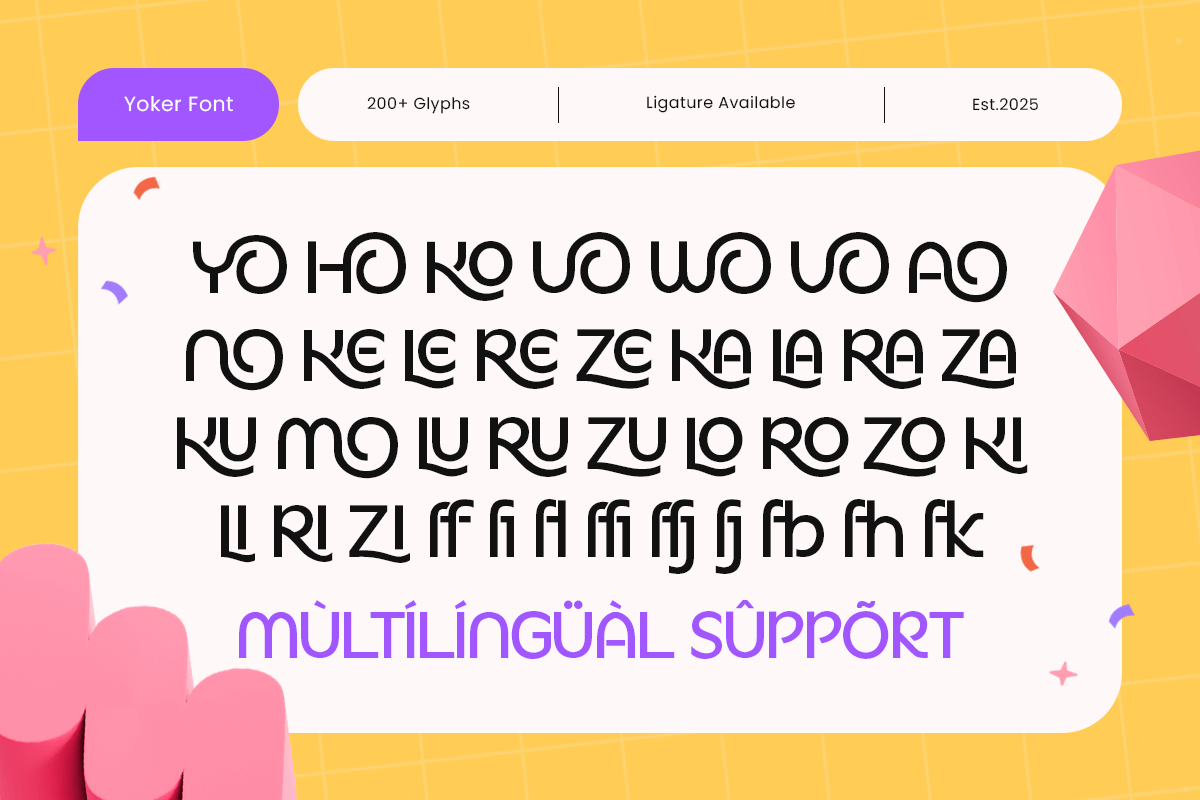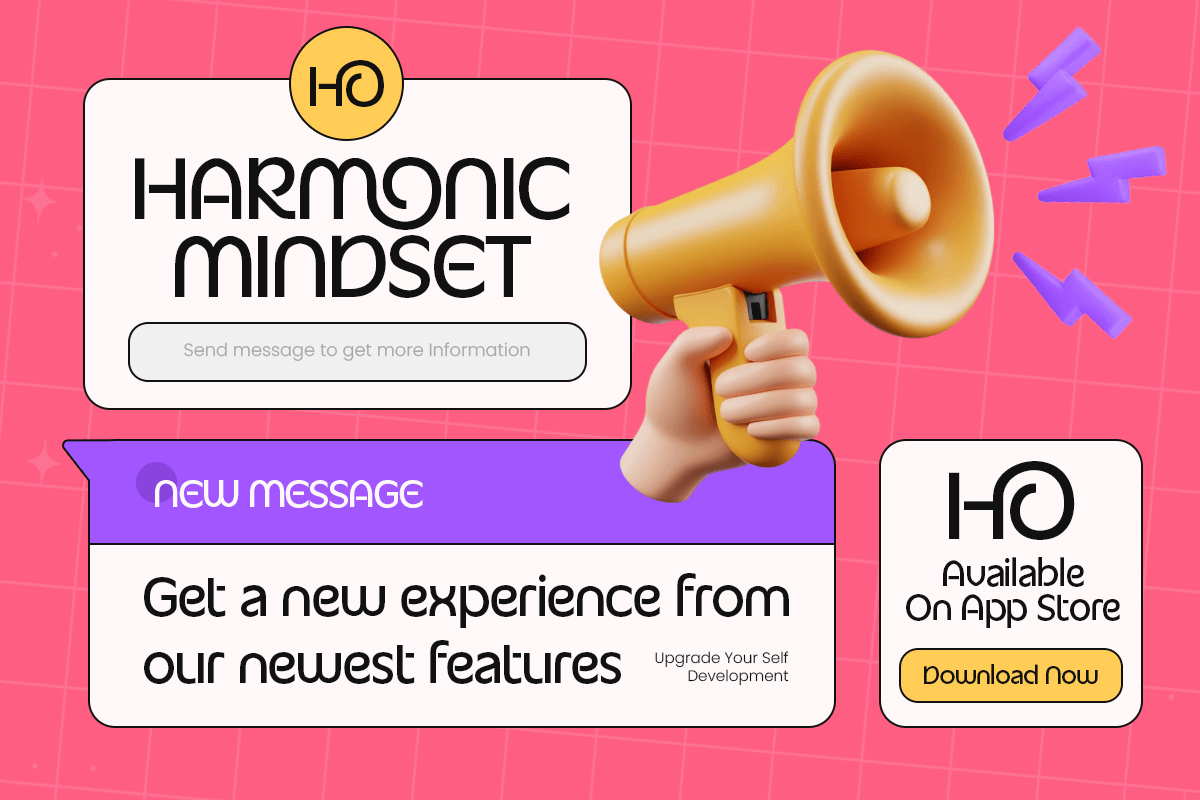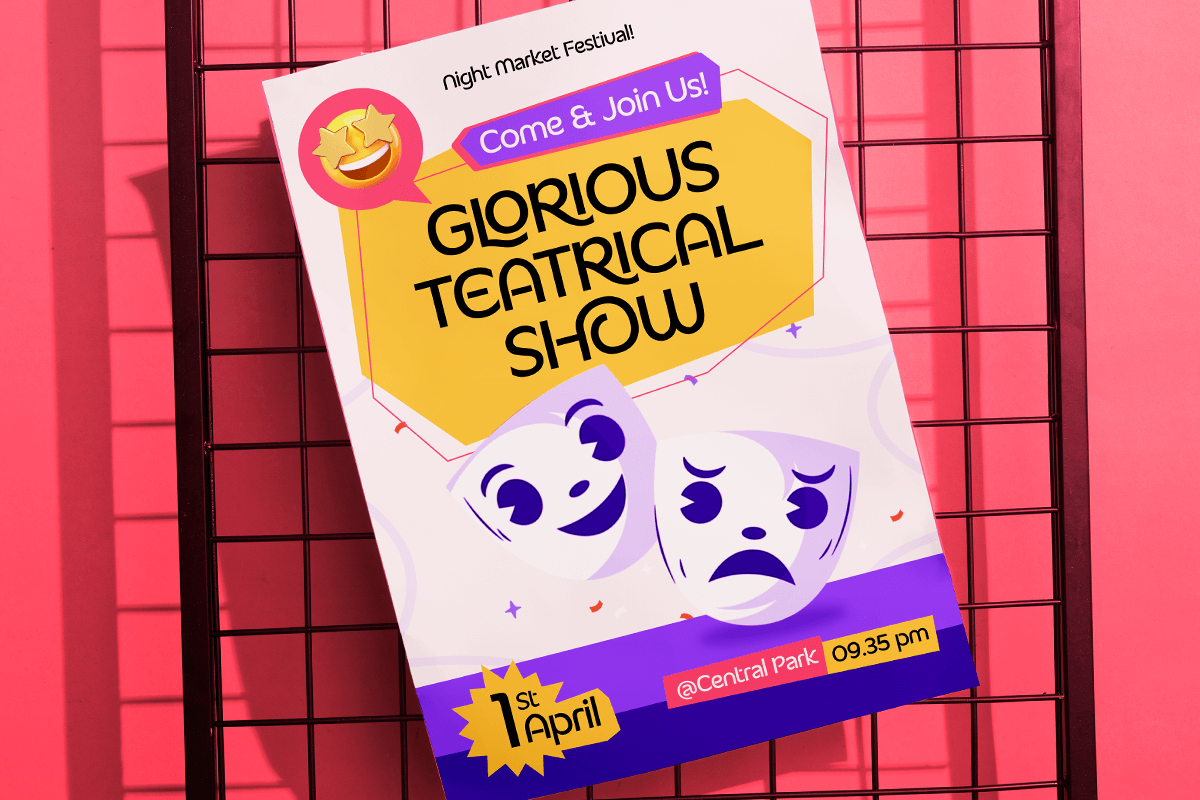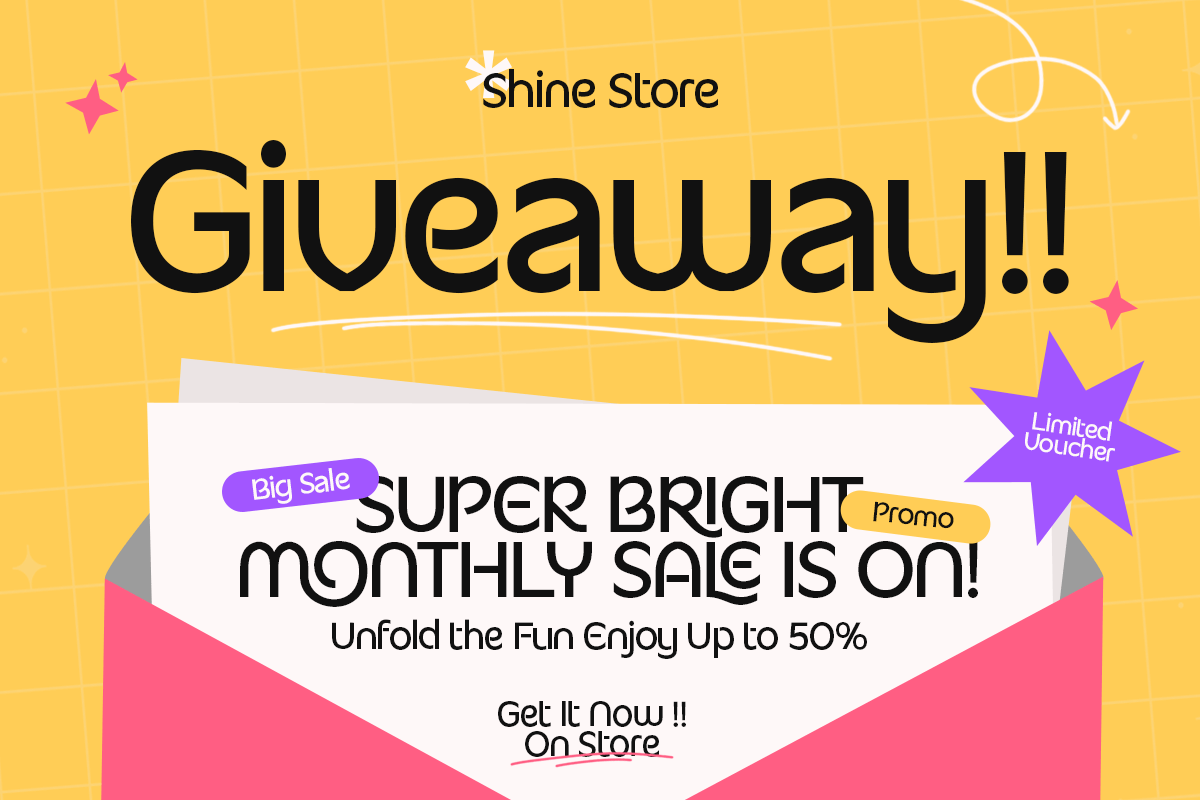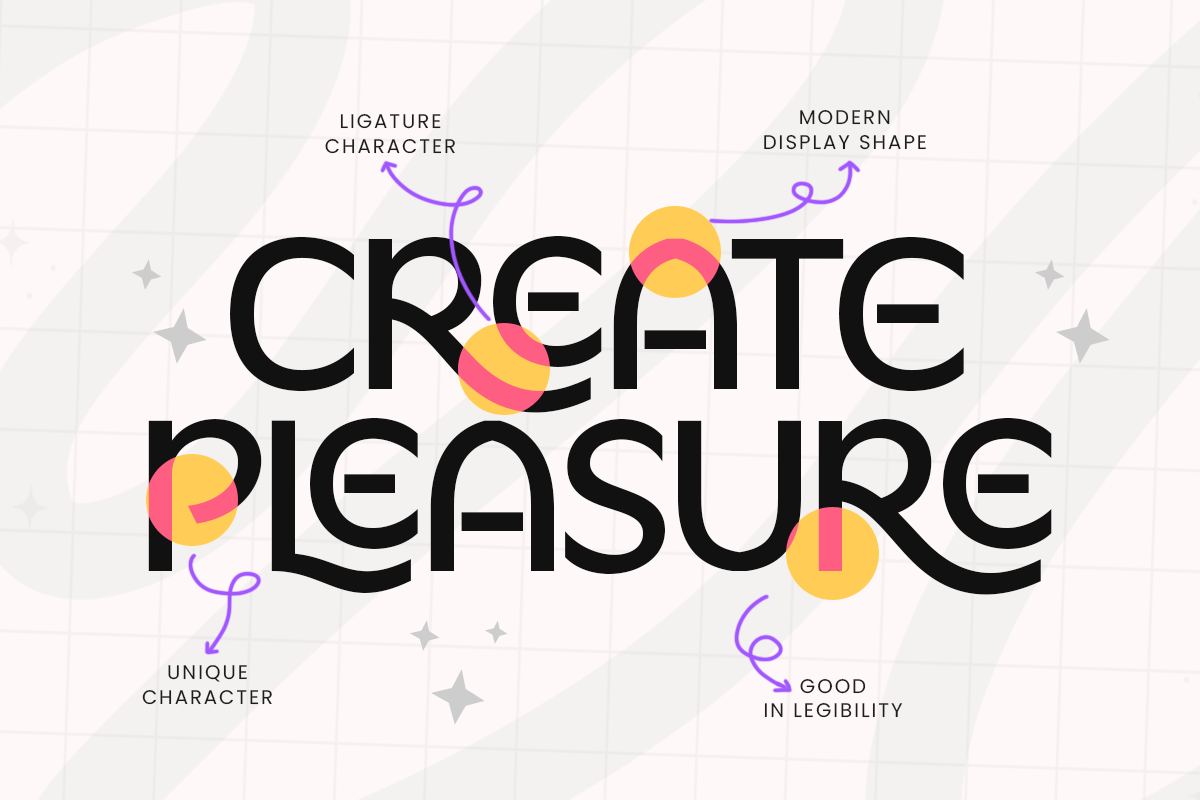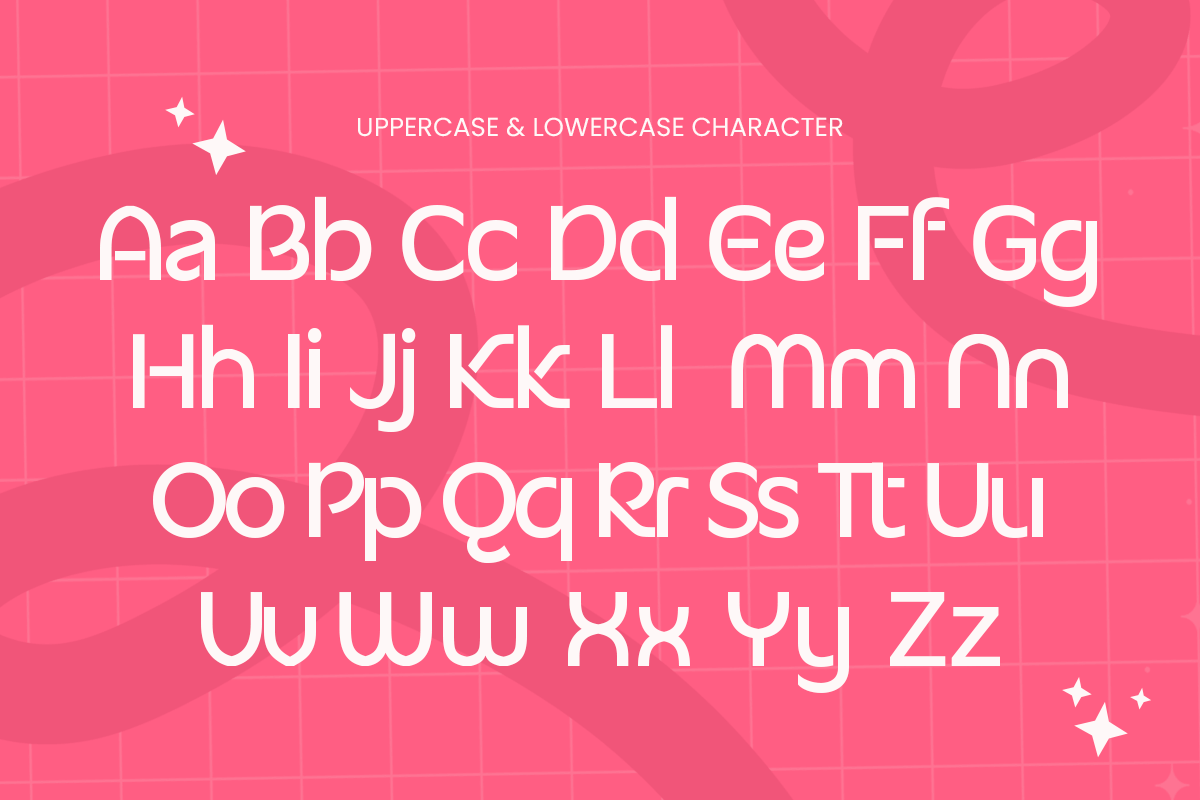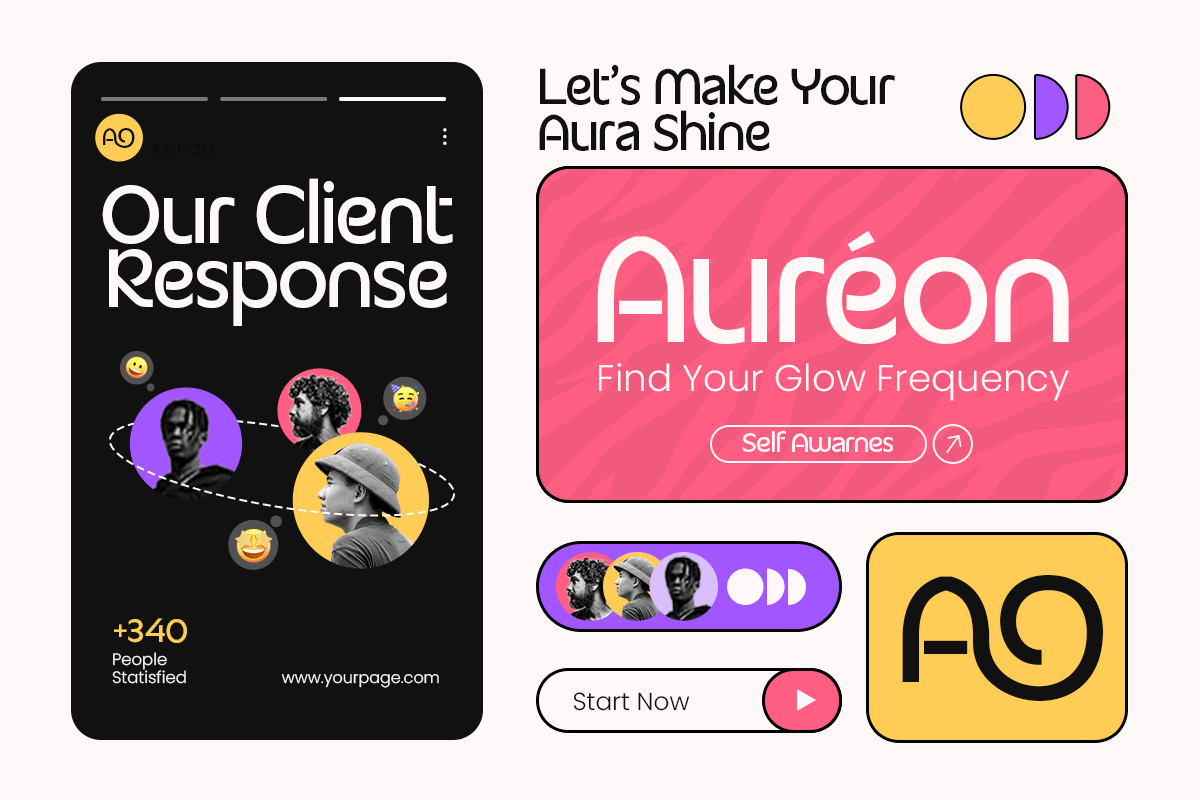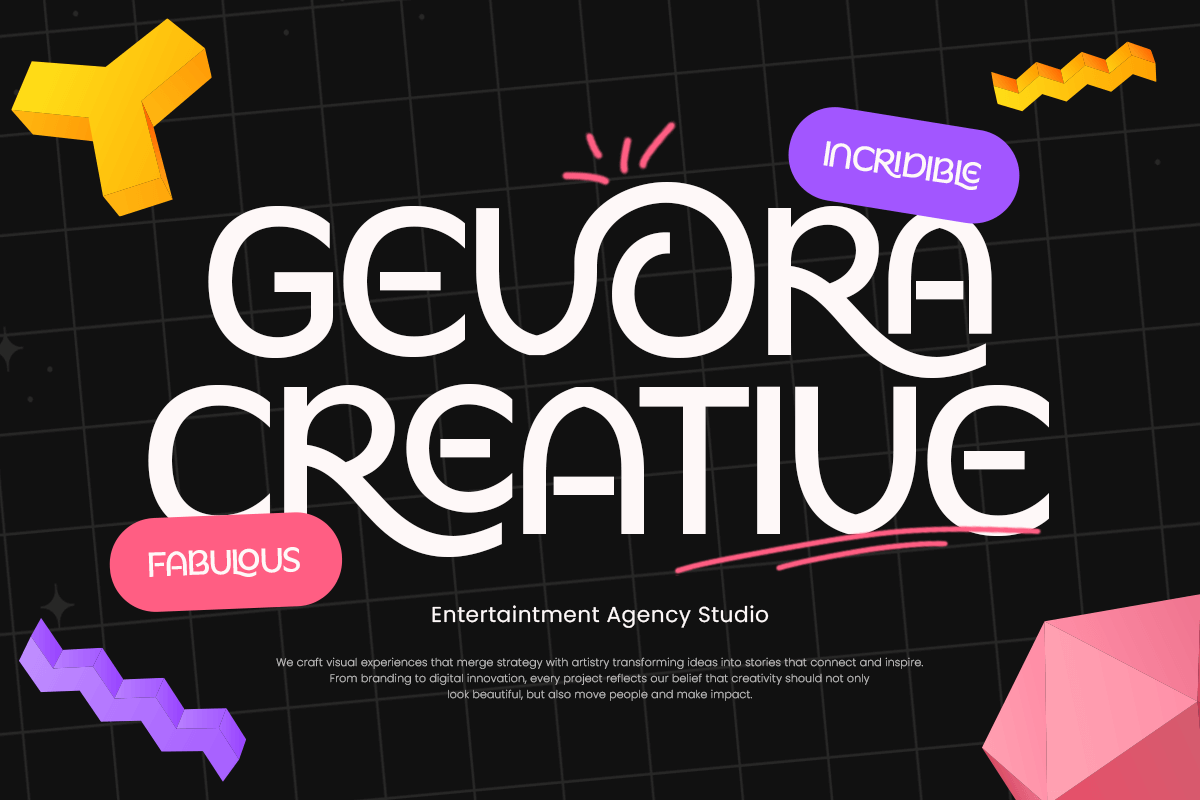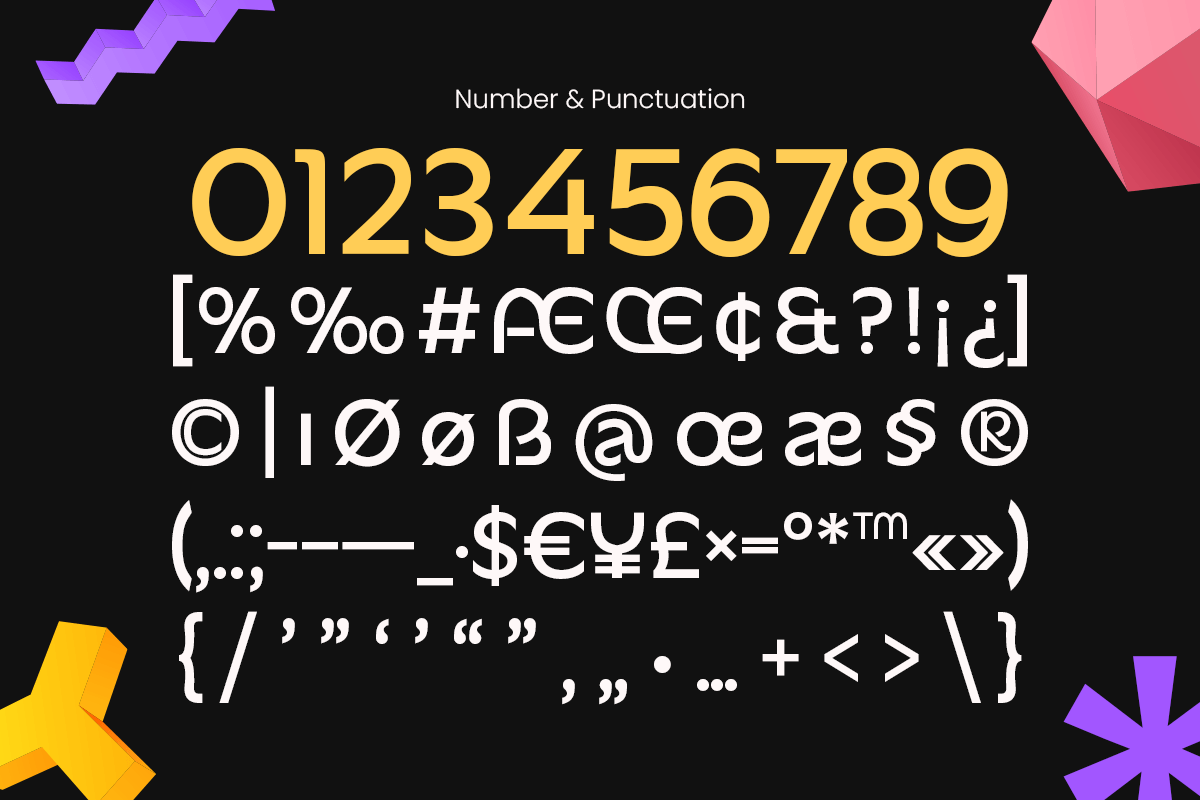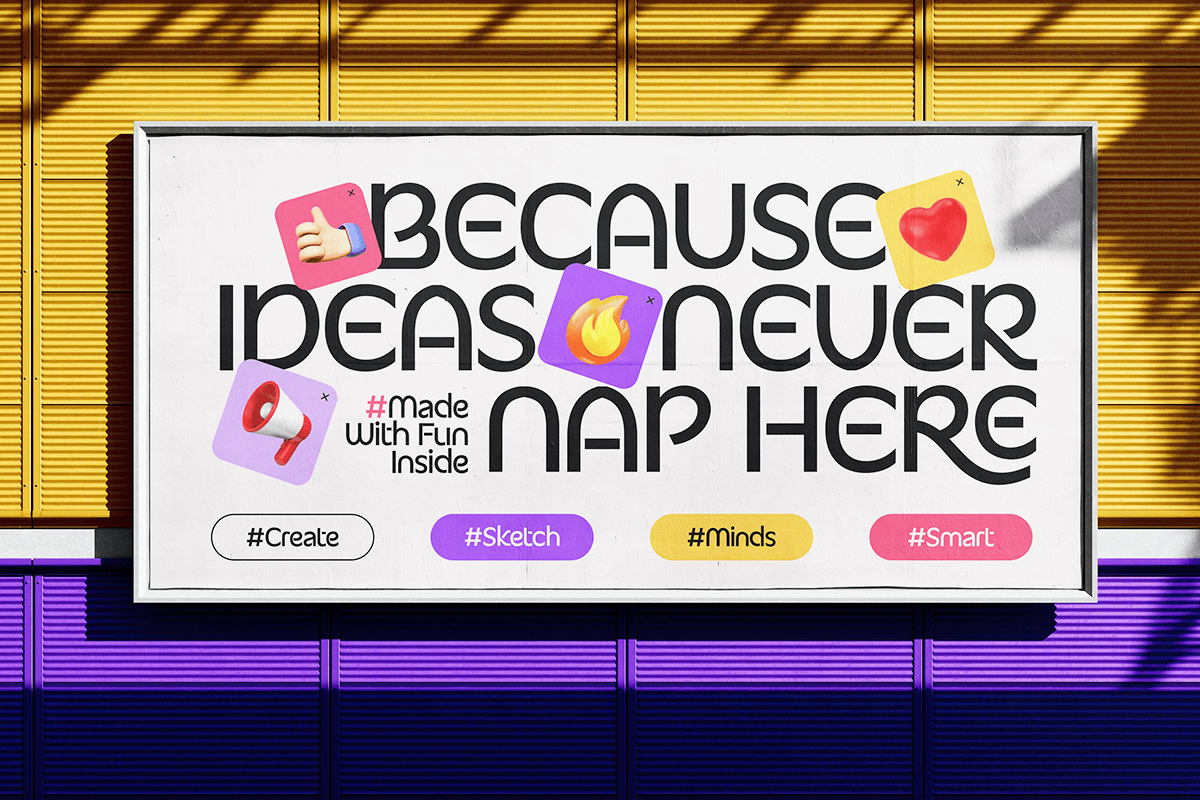
Yorker - Modern Display Fancy Font
Yorker – Modern Display Fancy Ligature Font
Yorker is a stylish modern display font featuring elegant curves, fancy ligatures, and artistic letter detailing. Designed to bring a premium and expressive aesthetic to your typography, Yorker is perfect for branding, fashion editorials, logo design, social media graphics, packaging, and creative headline work that needs a sophisticated visual touch.
Its unique ligatures and refined shapes create a luxurious and memorable impression, making Yorker an excellent choice for designers who want to elevate their layouts with a decorative yet modern display style. The font blends contemporary elegance with creative flair, resulting in a versatile typeface suitable for both minimalist and expressive designs.
Yorker – Modern Display Fancy Ligature Font Features:
* Fancy ligature display style with stylish modern character
* Ideal for fashion branding, logos, headlines, and editorial layouts
* Complete uppercase, lowercase, numbers, and punctuation
* Elegant curves with artistic decorative elements
* Perfect for premium, modern, and creative design projects
Transform your visual identity with Yorker – the fancy ligature font made for bold and beautiful modern design.